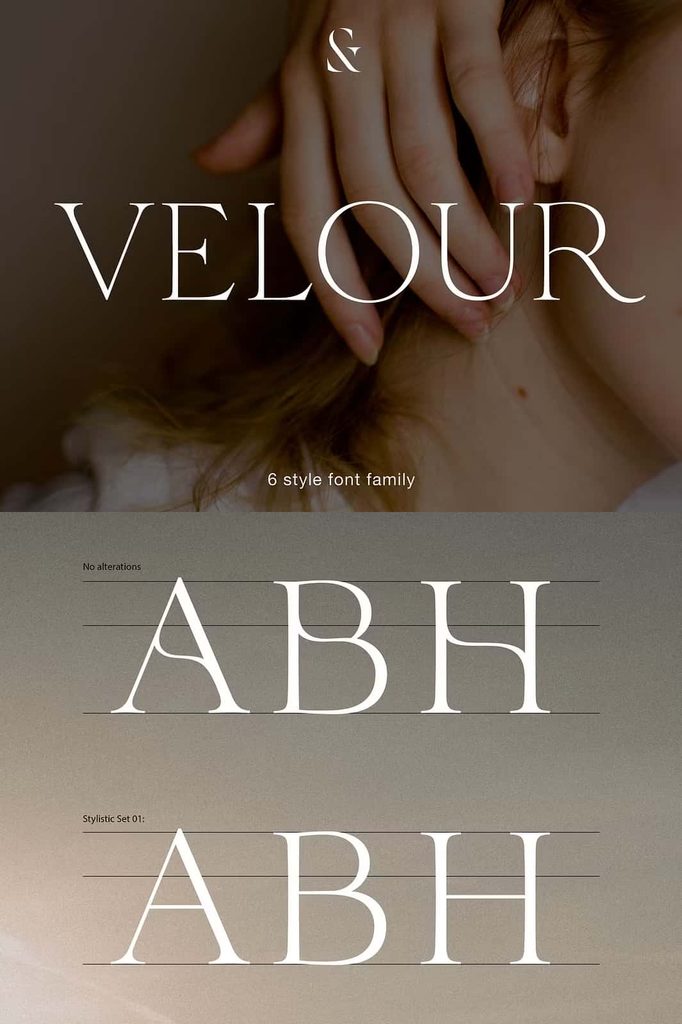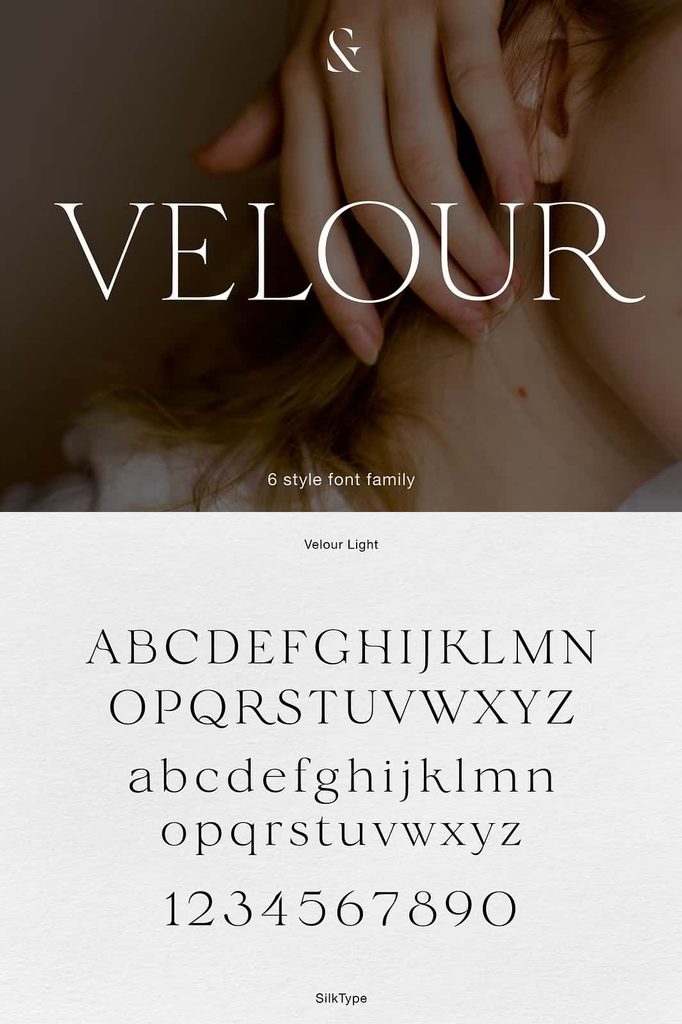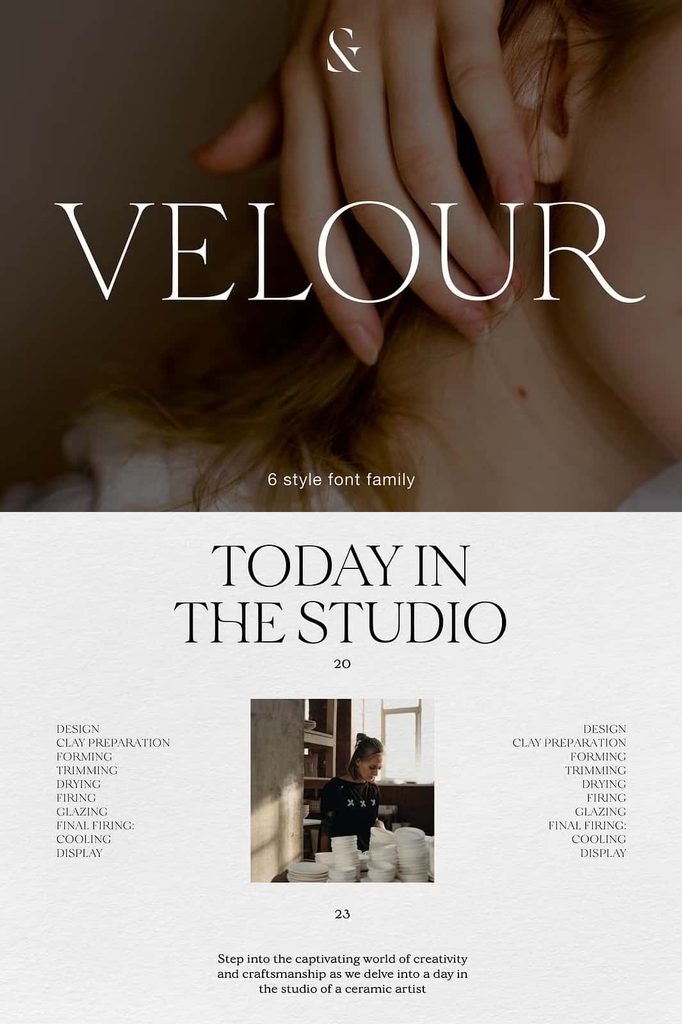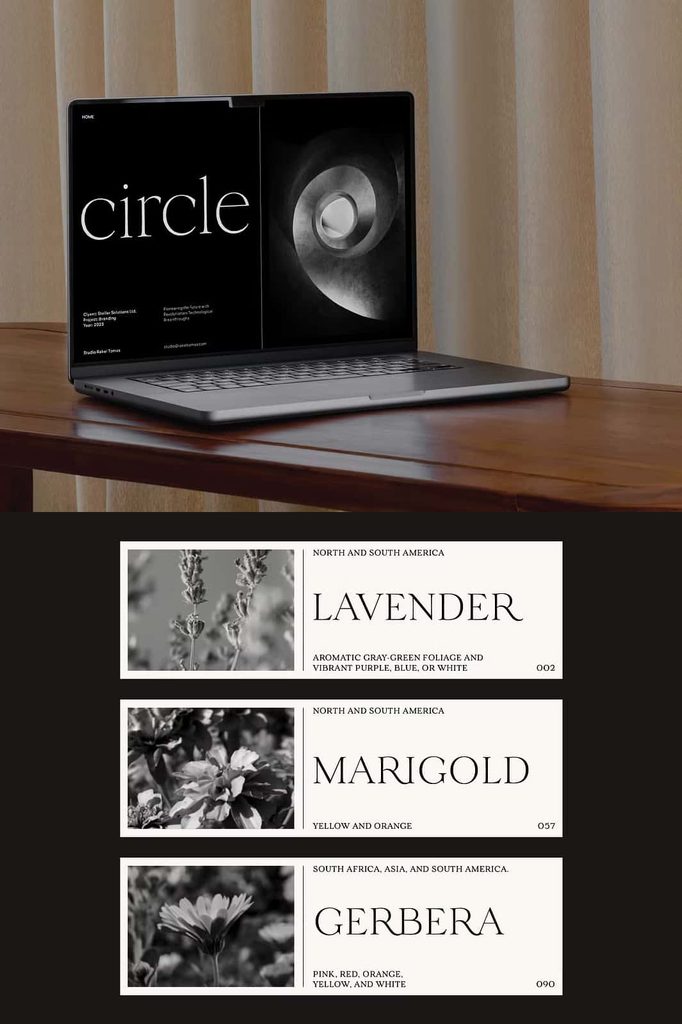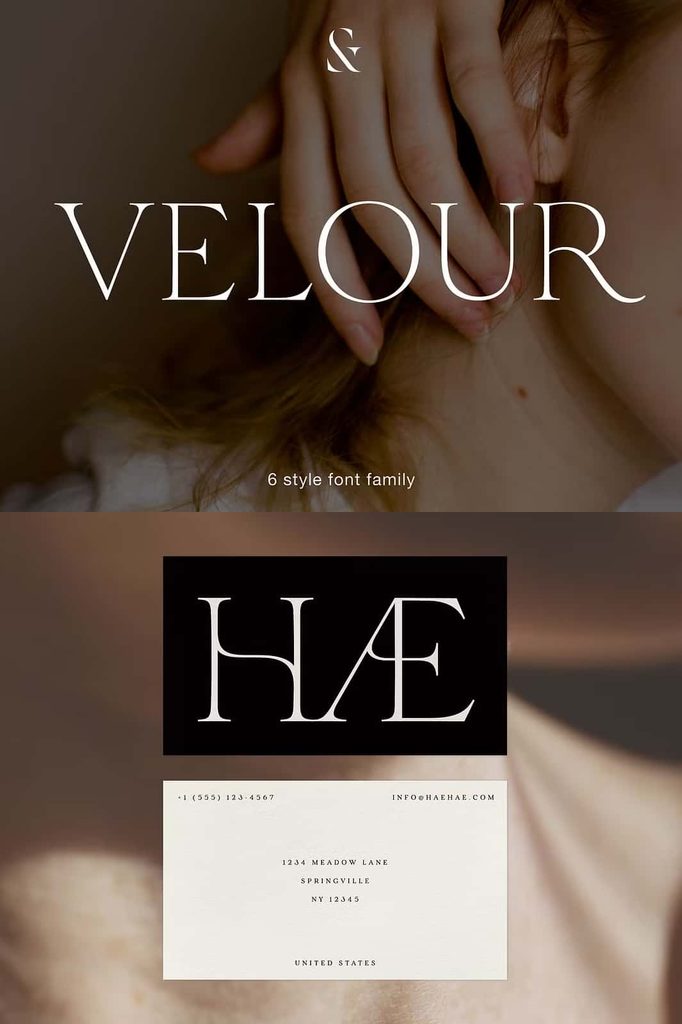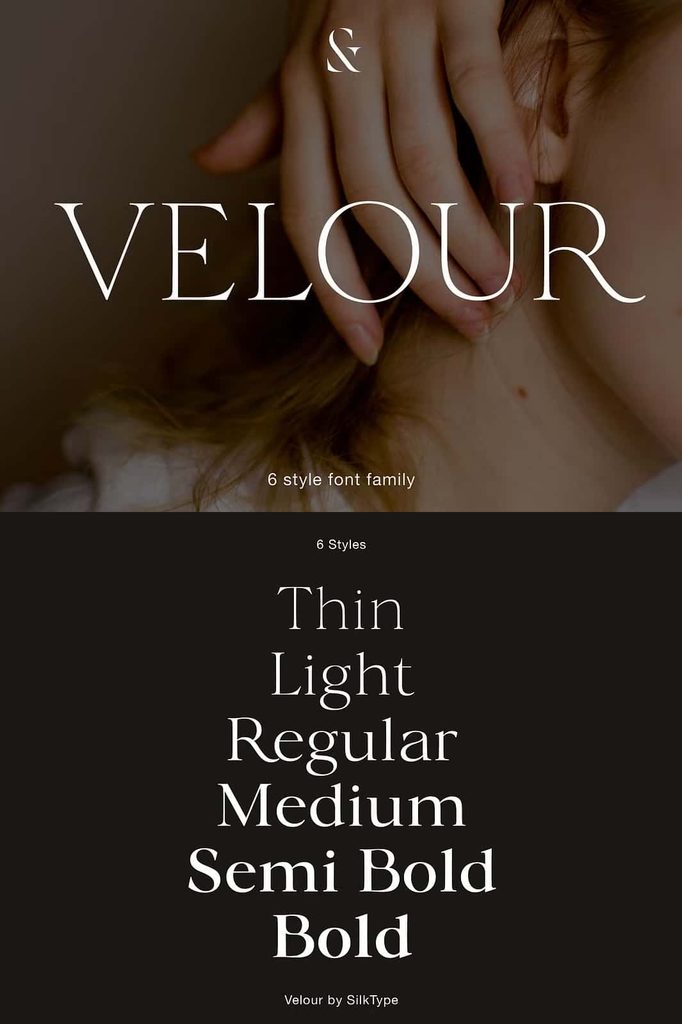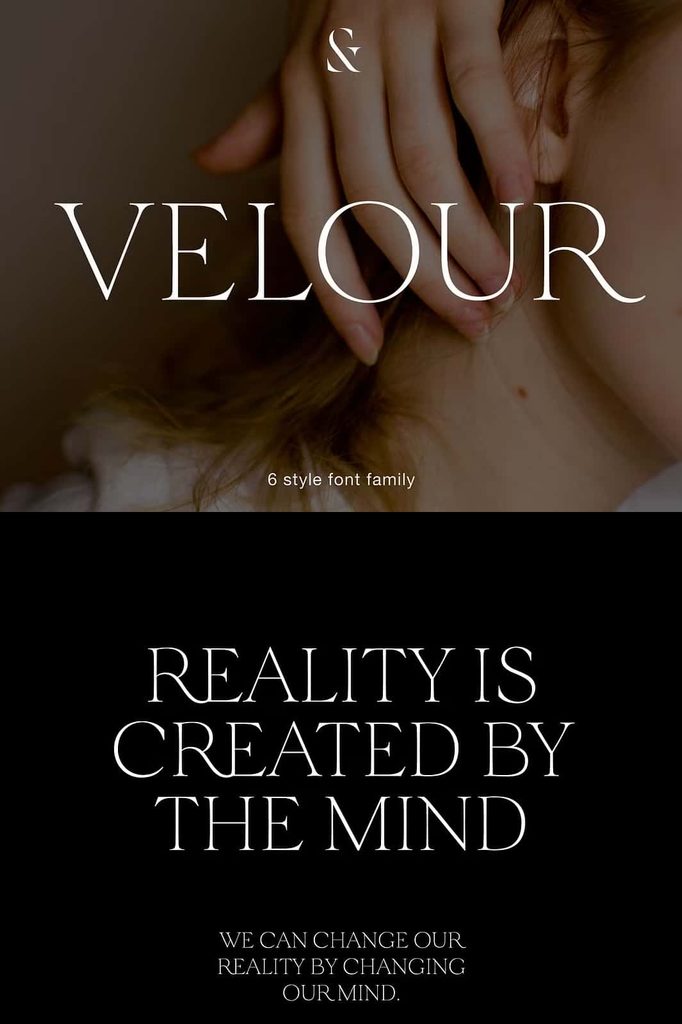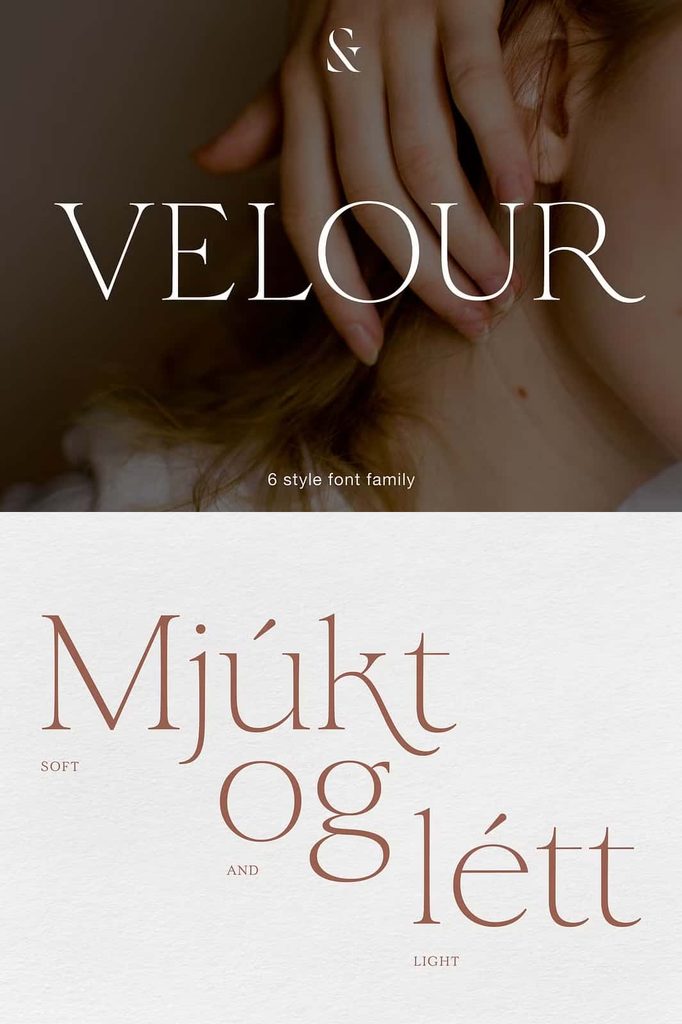
Velour Font
Velour is an elegant display typeface that brings sophistication, romance, and refined character to modern typography. Its thin, bracketed serifs create a graceful appearance, while its carefully designed letterforms add a luxurious touch to headlines, branding, editorial layouts, and other display-focused projects. The typeface combines classic typographic influences with distinctive details that help designers create polished and memorable compositions.
Designed for expressive typography, Velour gives each character a sophisticated presence without overwhelming the overall composition. Its elegant proportions and decorative details make it particularly effective when you need typography to communicate refinement, beauty, and a romantic atmosphere. Use it for large headlines, logos, invitations, magazine covers, packaging, posters, and other designs where typography plays a central visual role.
Velour Font Features
Velour includes a carefully developed collection of characters and OpenType features that expand its creative possibilities. The typeface combines thin bracketed serifs with distinctive letterform details, giving designers greater control over the visual personality of their typography. These features allow you to create both classic and more decorative compositions while maintaining a consistent typographic style.
Thin Bracketed Serifs
The thin, bracketed serifs form one of the defining characteristics of Velour. They add an elegant finishing touch to the letterforms and create a refined appearance that works particularly well at display sizes. The delicate serif structure gives the typeface a sophisticated personality without making it appear overly ornate.
These refined serifs make Velour an excellent choice for projects that require an upscale or editorial aesthetic. Designers can use the font to establish a sense of luxury and elegance in both digital and print applications.
Distinctive Curved Crossbars
Velour introduces distinctive curved crossbars on characters such as “A” and “H.” These subtle details give the typeface a recognizable identity and separate it from more conventional serif fonts. The curved construction creates a gentle visual rhythm that contributes to the font’s romantic and sophisticated character.
Sophisticated Letterforms
The “K” and “R” feature long, sophisticated legs that enhance the expressive quality of the typeface. These extended forms create elegant movement within headlines and other large-scale typography. They can add a sense of refinement to names, titles, logos, and short phrases.
Alternative Characters and Automatic Substitution
Velour also includes an alternative lowercase “k” that can be automatically substituted in appropriate situations. This feature helps maintain a consistent flow across connected typography and gives designers a more natural-looking result without requiring extensive manual adjustments.
By taking advantage of OpenType functionality, designers can allow compatible software to manage certain character substitutions automatically. This makes it easier to create polished typography while preserving the elegant rhythm of the typeface. The feature can be especially useful when working with names, headlines, invitations, and other display text that benefits from subtle typographic refinement.
Beautiful Numerals
Velour includes both standard and old-style numerals, giving designers additional flexibility when working with numbers. Standard numerals provide a clean and familiar appearance for general design applications, while old-style numerals introduce a more traditional typographic character.
The availability of both numeral styles makes Velour suitable for a wider range of projects. Designers can select the numeral treatment that best matches the visual direction of a layout, whether they want a contemporary display style or a more classic editorial appearance.
Two Ampersand Styles
Velour provides two different ampersand designs, allowing you to choose a character that complements the surrounding typography. Ampersands often become noticeable decorative elements in logos, wedding stationery, invitations, and editorial headlines, so having multiple options can make a meaningful difference.
You can select the ampersand style that best suits your composition and use it to introduce subtle variation without changing the overall typeface. This additional choice gives designers more creative control when developing refined typographic layouts.
Stylish Alternates
The typeface also includes alternate characters with less complicated letterforms. These alternates provide a simpler option when you want to reduce decorative complexity while preserving the core personality of Velour.
Using alternate characters can help designers adapt the font to different contexts. A more decorative character may work beautifully in a prominent logo or invitation, while a simpler alternate can provide a cleaner appearance in a headline or supporting display text. This flexibility makes Velour easier to adapt across different creative directions.
If you want a typeface that communicates elegance while offering useful typographic alternatives, Velour provides a polished and versatile solution. Its combination of graceful details and practical OpenType features allows designers to create sophisticated typography with a distinctive visual flow.